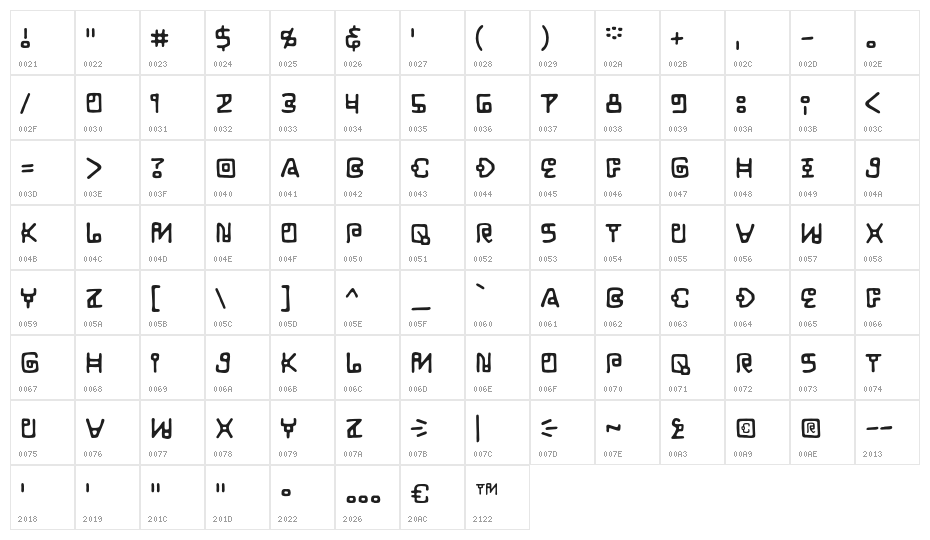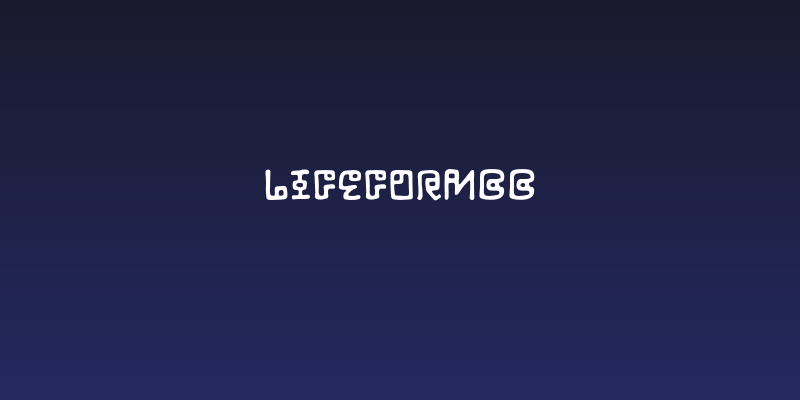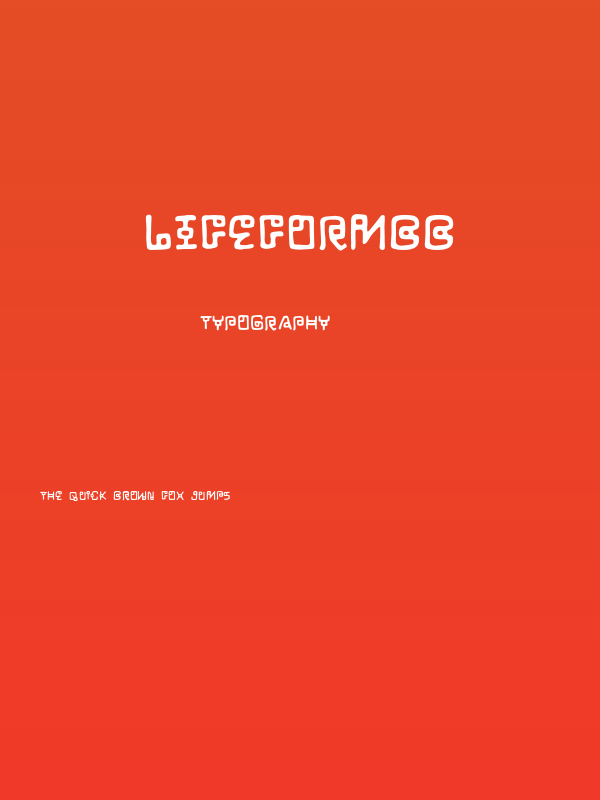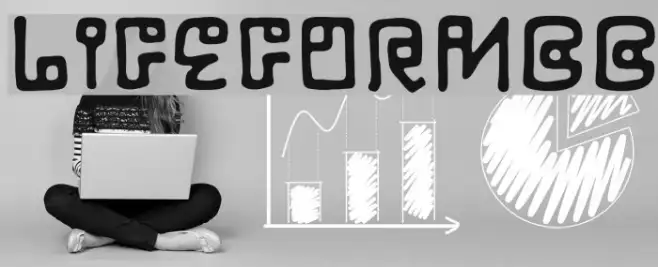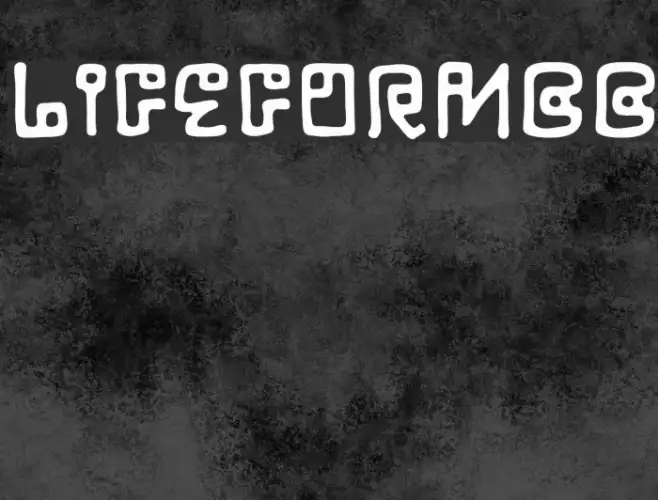
LifeFormBB Font
LifeFormBB Description
This font exhibits a unique, futuristic design with a playful and quirky aesthetic. The characters are bold and rounded, featuring a consistent thickness throughout, which gives them a robust appearance. The letters have a slightly irregular shape, adding a hand-drawn feel that enhances its whimsical nature. The numbers and special characters follow the same design principles, maintaining uniformity across the set. This font's distinct style makes it stand out, ideal for creative and unconventional projects.
| Overall Style | Futuristic, Playful |
| Proposed Projects | Ideal for sci-fi themed posters, children's book covers, video game graphics, or any project requiring a playful and unique typeface. |